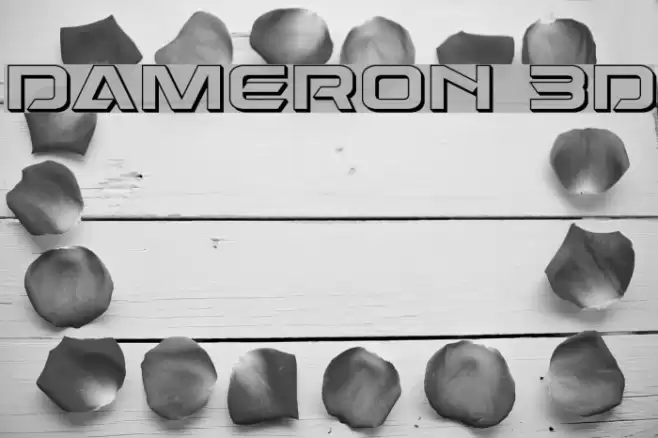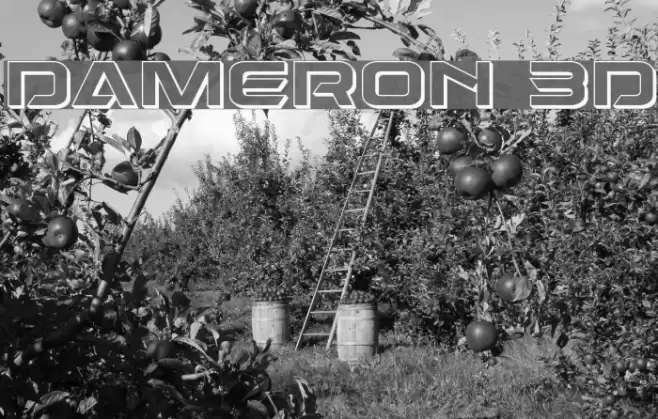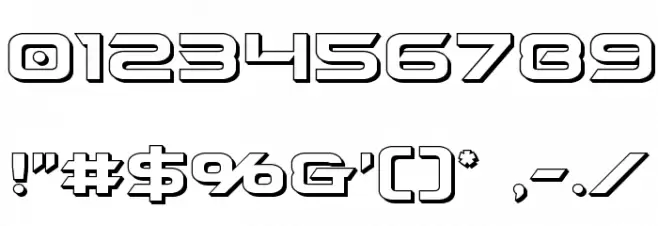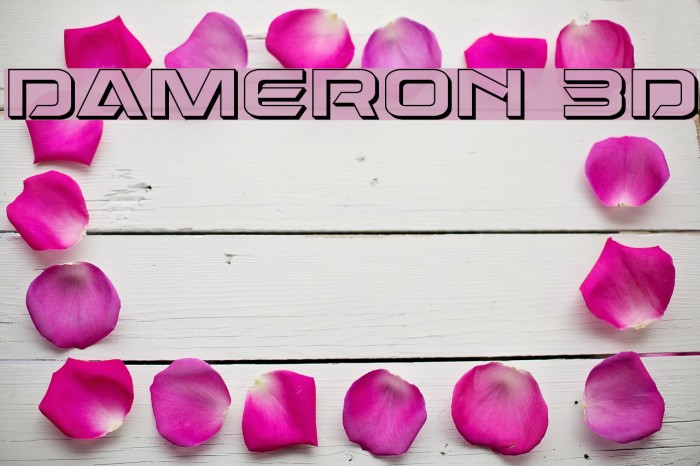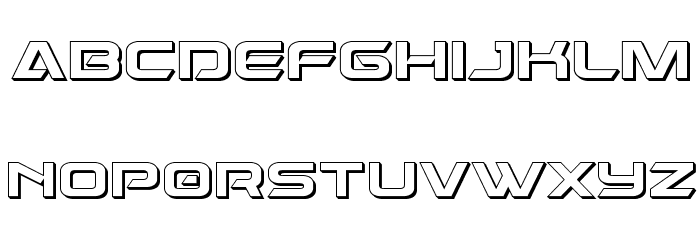
Dameron 3D Font
Dameron 3D Description
This font features a bold, three-dimensional appearance with a futuristic and geometric design. The characters are outlined with a shadow effect that gives them depth and a sense of movement. The uppercase letters are angular and sharp, while the lowercase letters maintain a consistent style, enhancing readability. The numerals and special characters follow the same design principles, making the font versatile for various applications. Its unique style makes it stand out, suitable for projects that require a modern and dynamic look.
A bold, 3D geometric font with a futuristic style from Sci-fi fonts.
- Proposed Projects: Ideal for video game titles, sci-fi movie posters, tech branding, and futuristic event flyers.